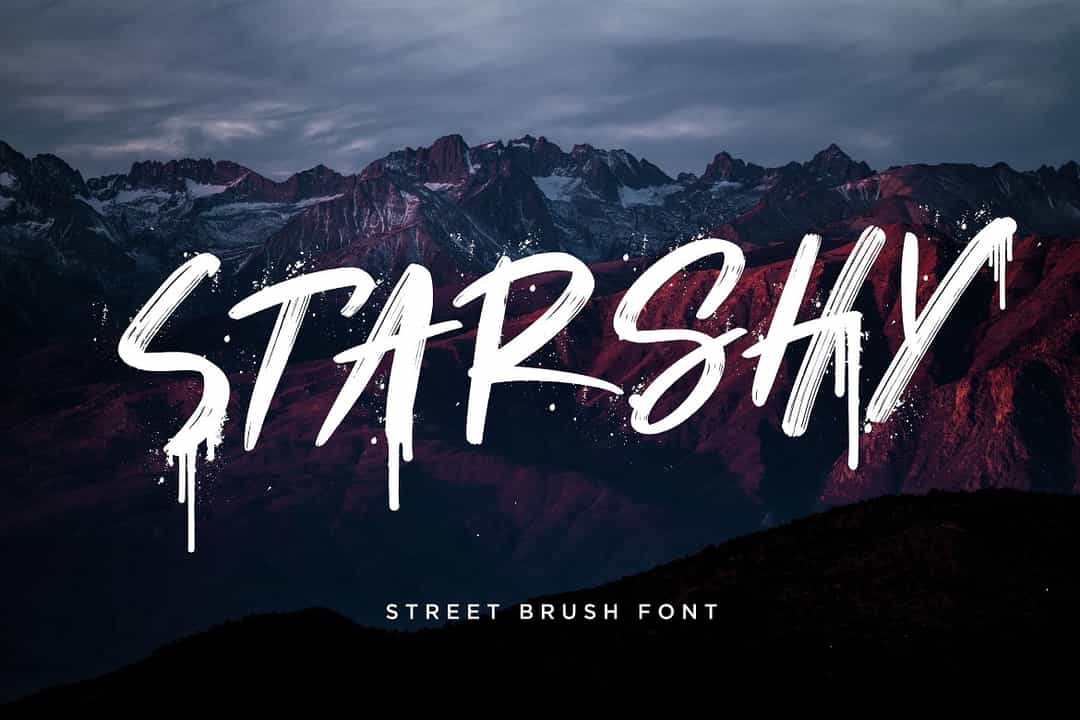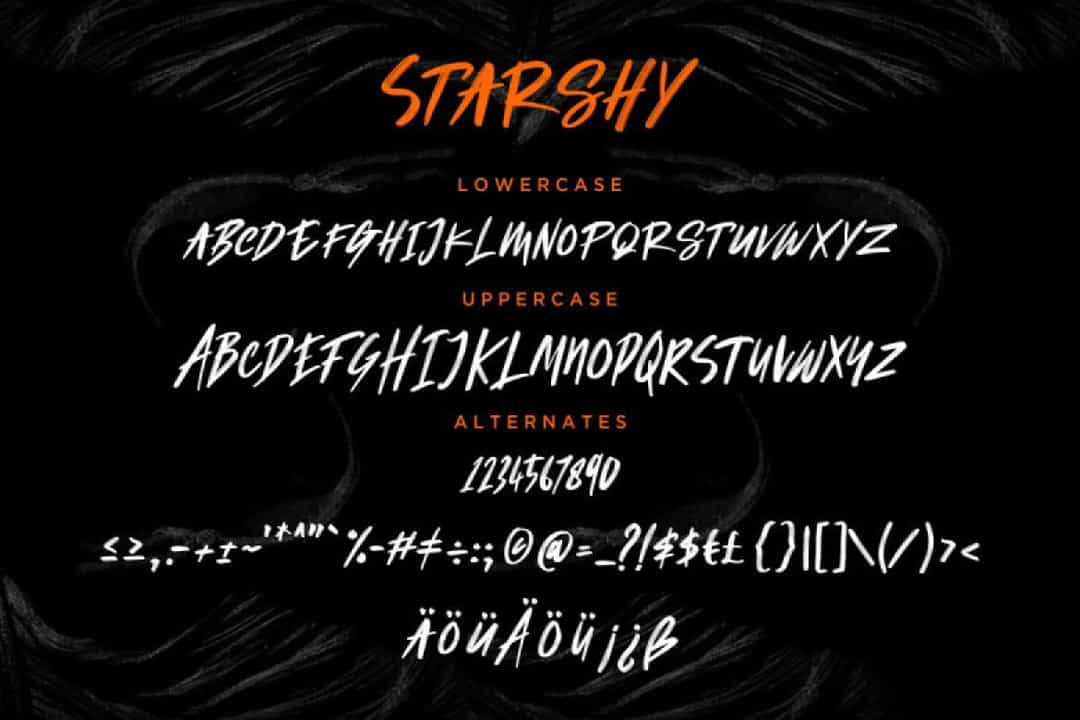
Starshy the name of a brush font. Its street style and a scratch effects make this font look natural and bold. Starshy street font is suitable for design elements wedding, event badges, t-shirt, logos, t-shirts stickers, amazing work, among others.